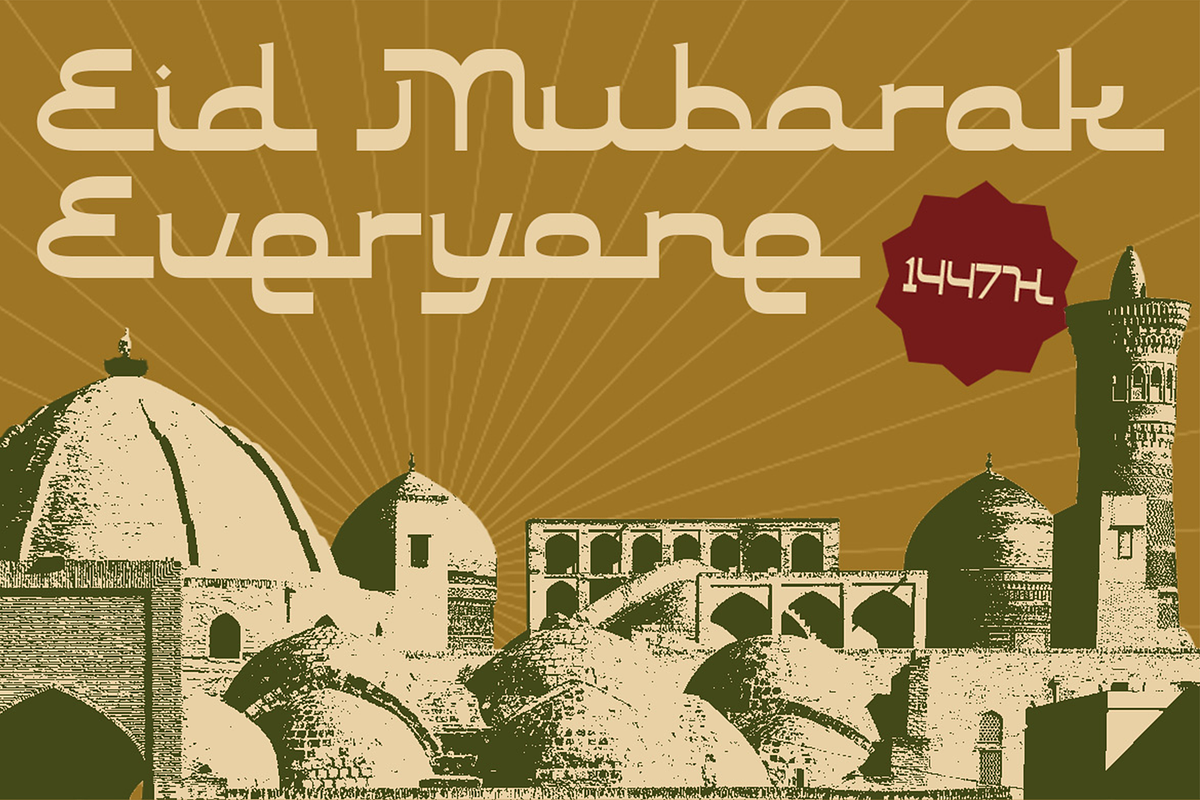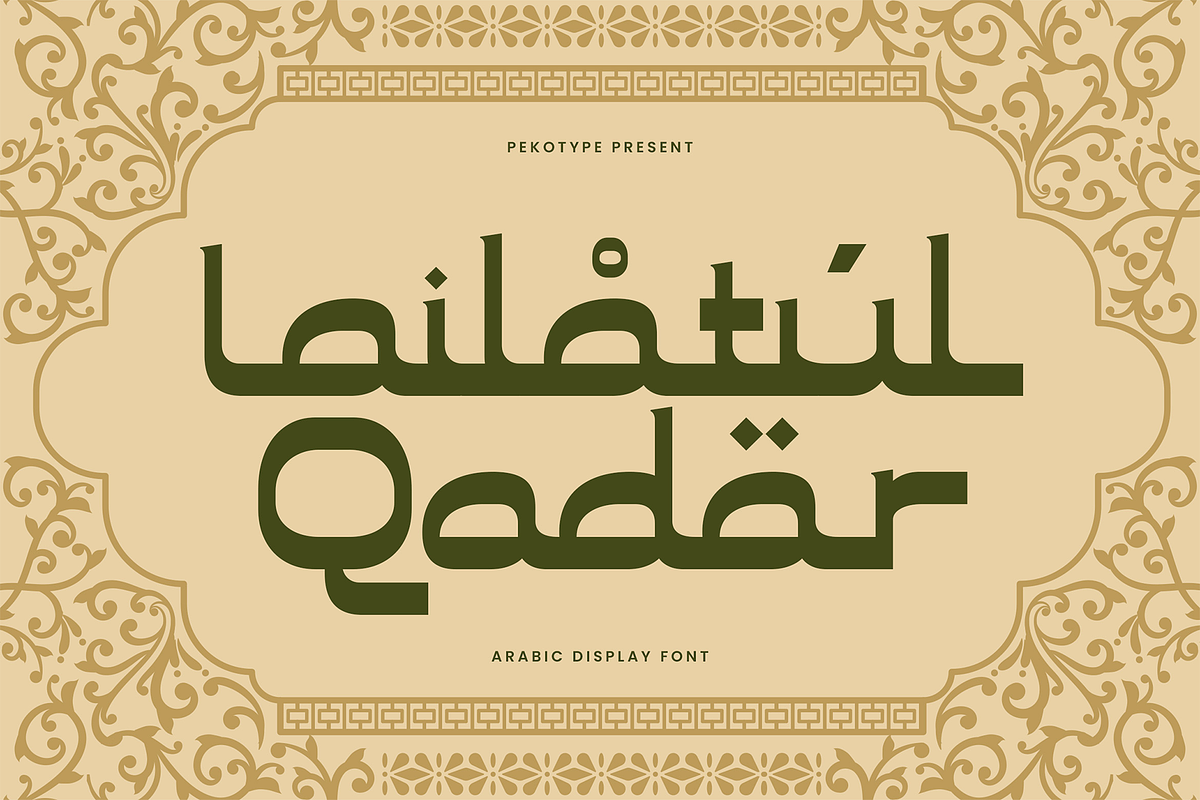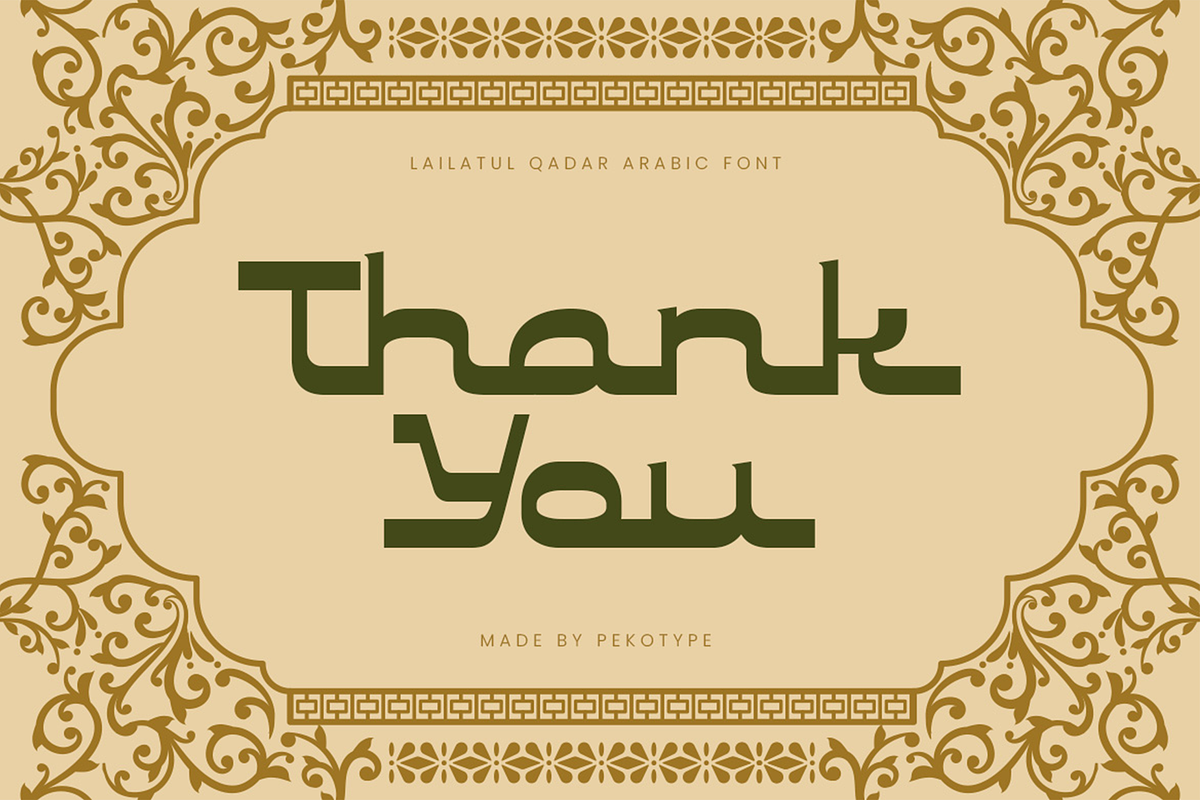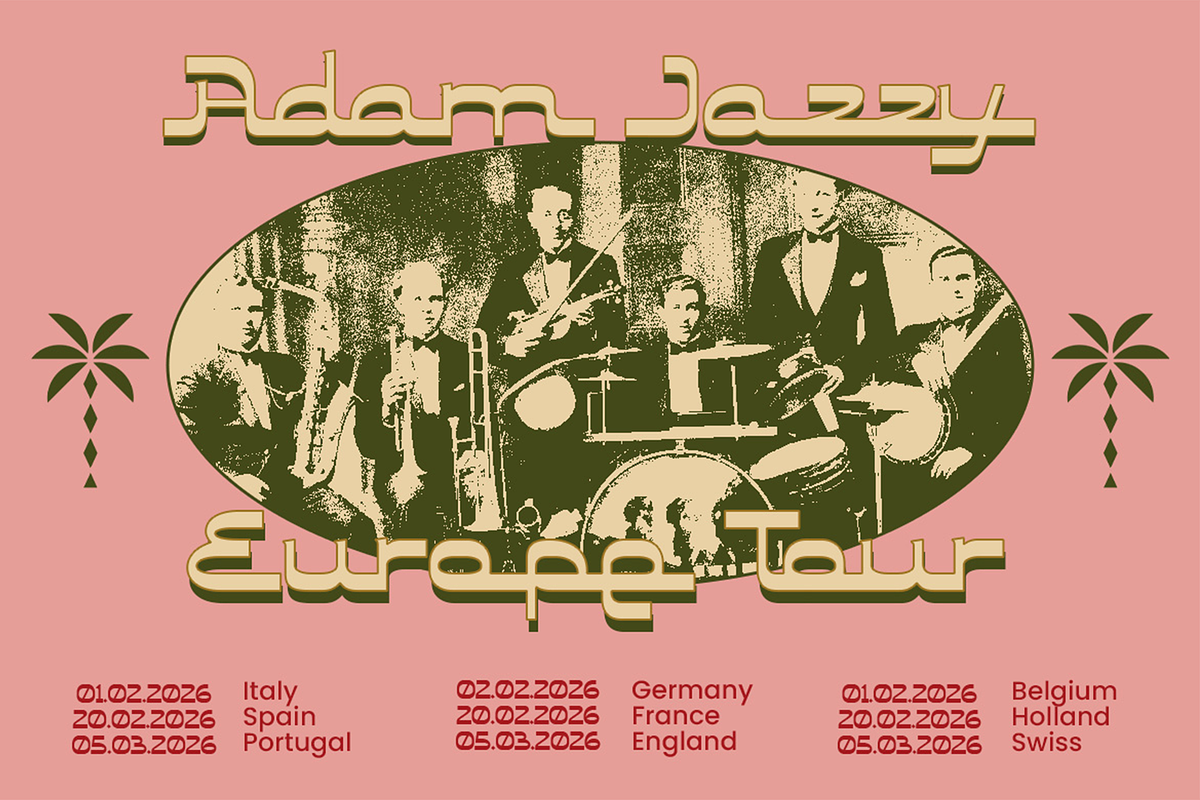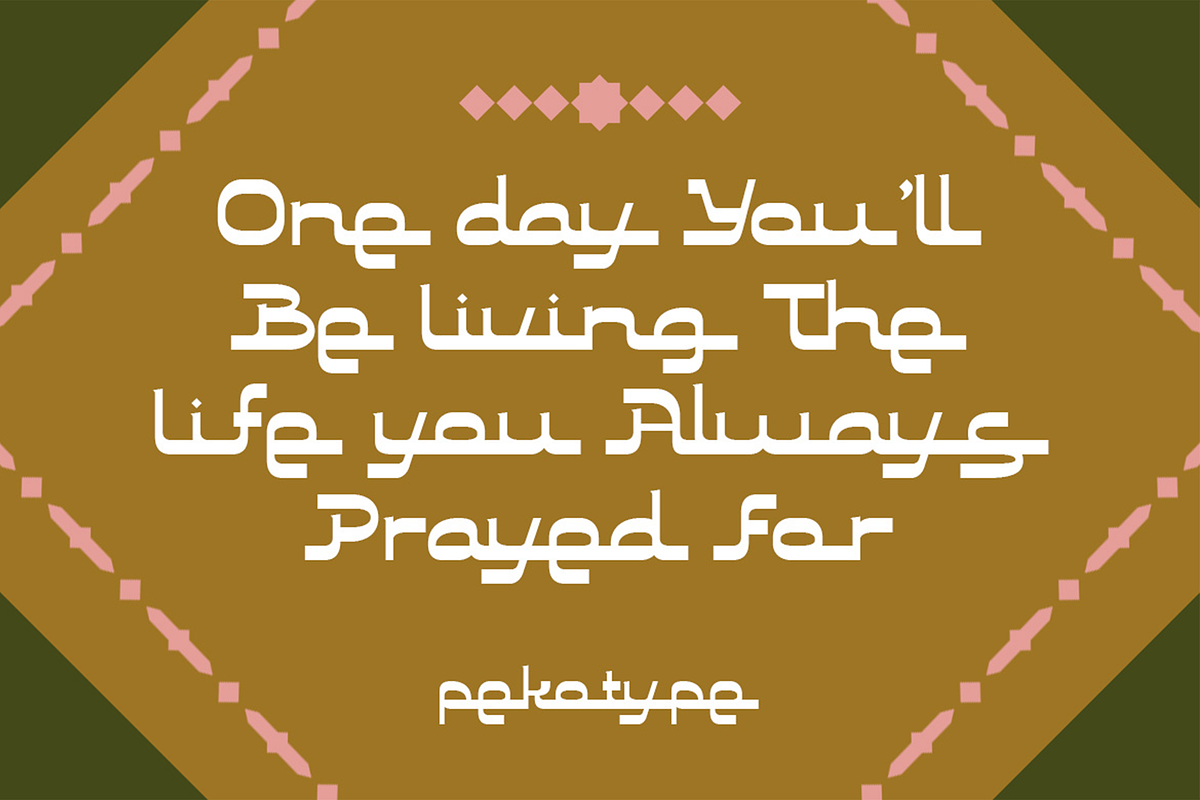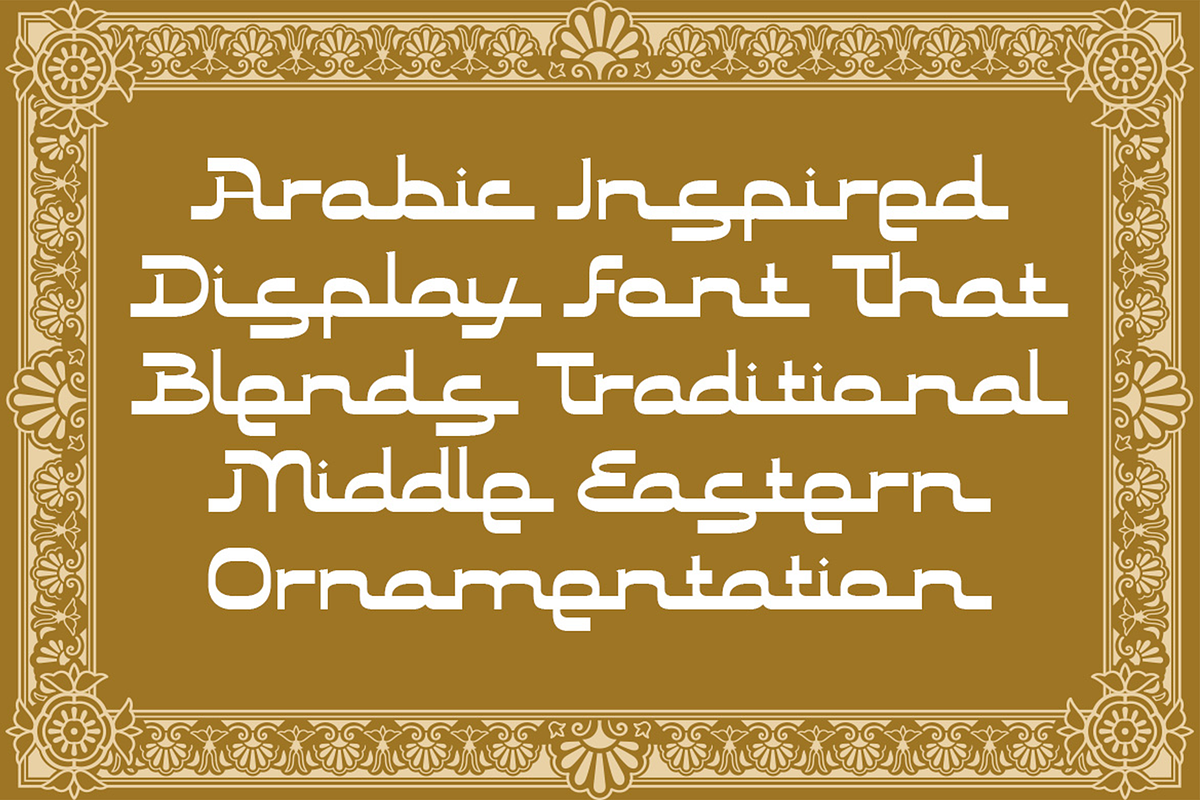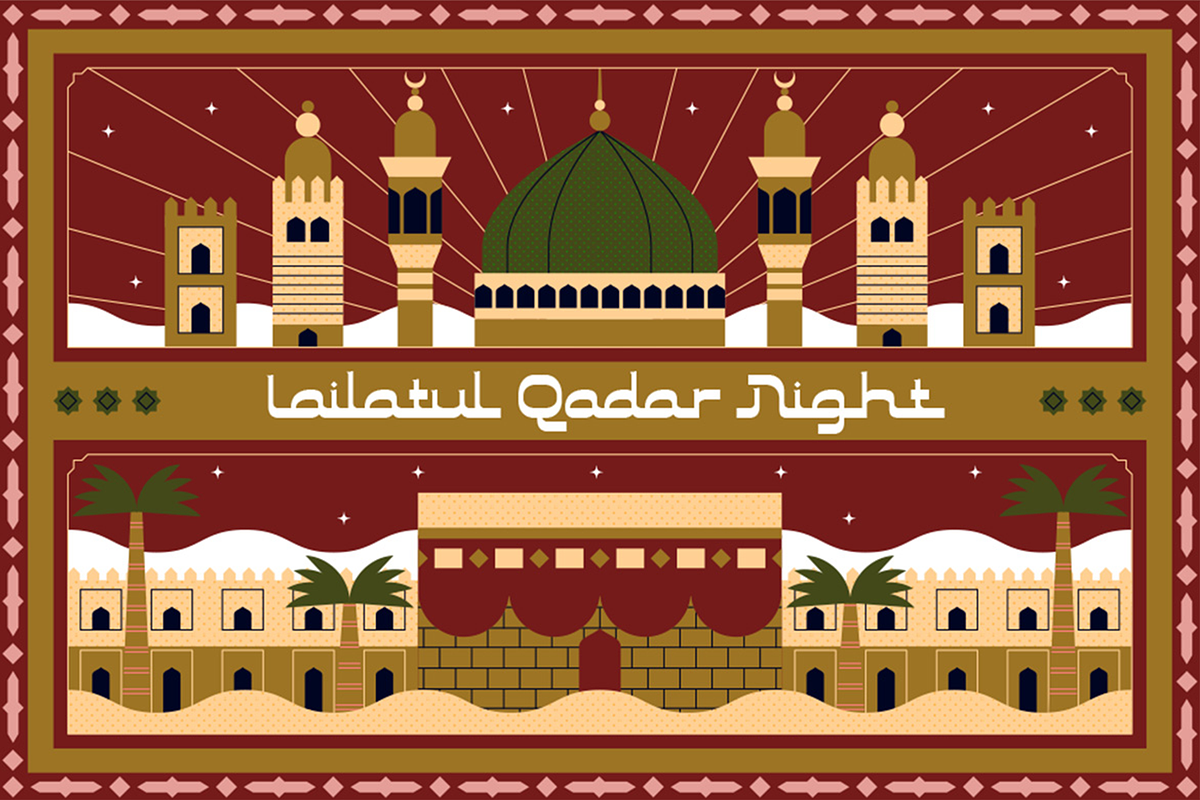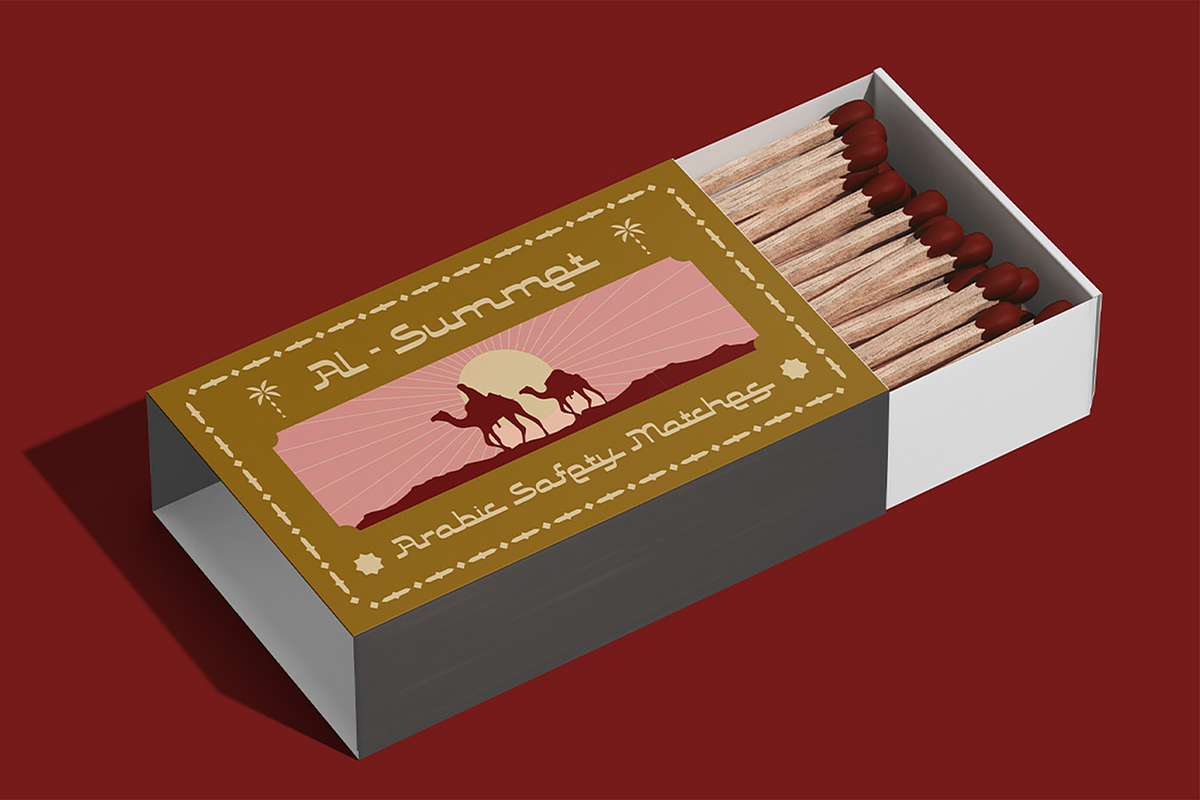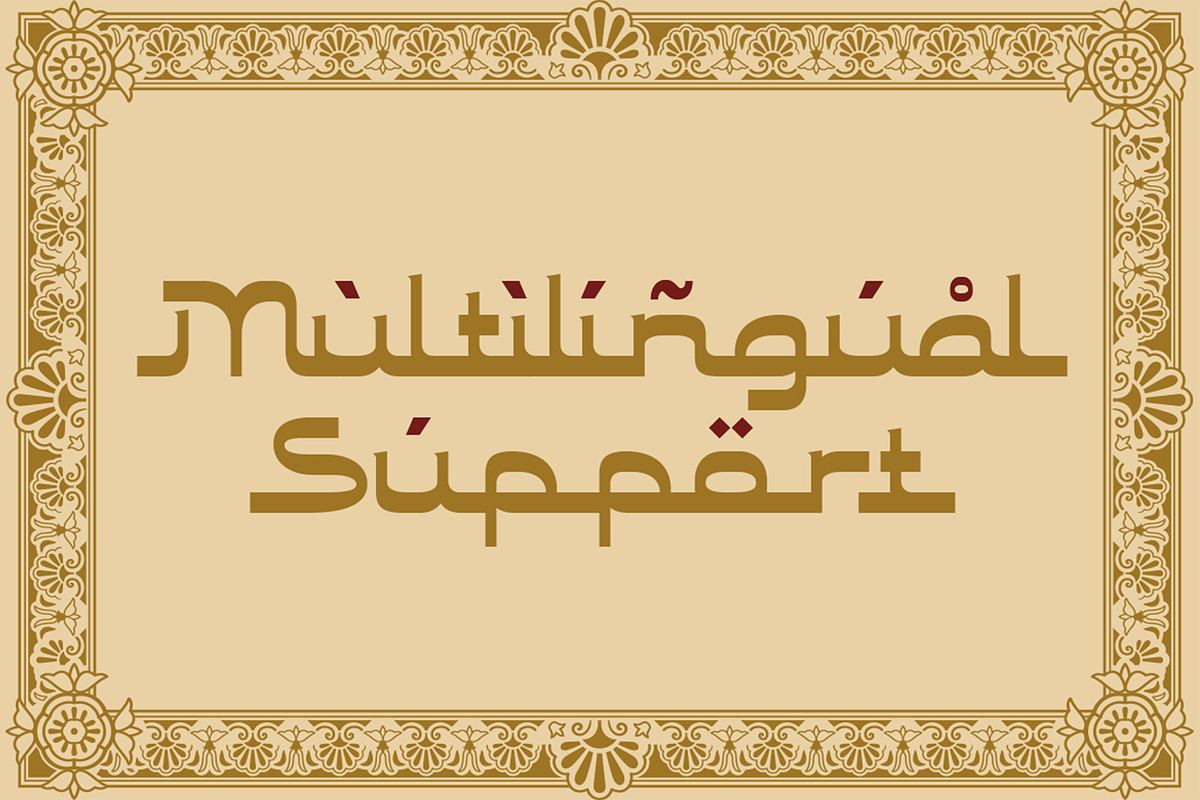
Lalilatul Qadar - Arabic Font
LAILATUL QADAR – Traditional Arabic Display Font with Ornamental Beauty
LAILATUL QADAR is a beautifully crafted Arabic-inspired display typeface that blends traditional Middle Eastern aesthetics with rich ornamental details. Designed to reflect cultural elegance and spiritual depth, this font carries a timeless character that feels authentic, decorative, and visually powerful.
With its strong Arabic influence, elegant curves, and refined ornamentation, LAILATUL QADAR is perfect for designs that require a classic and sacred atmosphere. It supports uppercase and lowercase characters and comes with multilingual support, making it suitable for both local and international creative projects.
This typeface is ideal for branding, logos, packaging, event posters, marketing materials, Islamic celebrations, Ramadan and Eid promotions, restaurant branding, cultural festivals, social media content, and premium product design. Its decorative structure instantly adds an exotic and luxurious Middle Eastern touch to any visual composition.
If you are looking for an Arabic display font that captures tradition, spirituality, and ornamental beauty, LAILATUL QADAR is a powerful choice to elevate your design with cultural elegance and timeless charm.